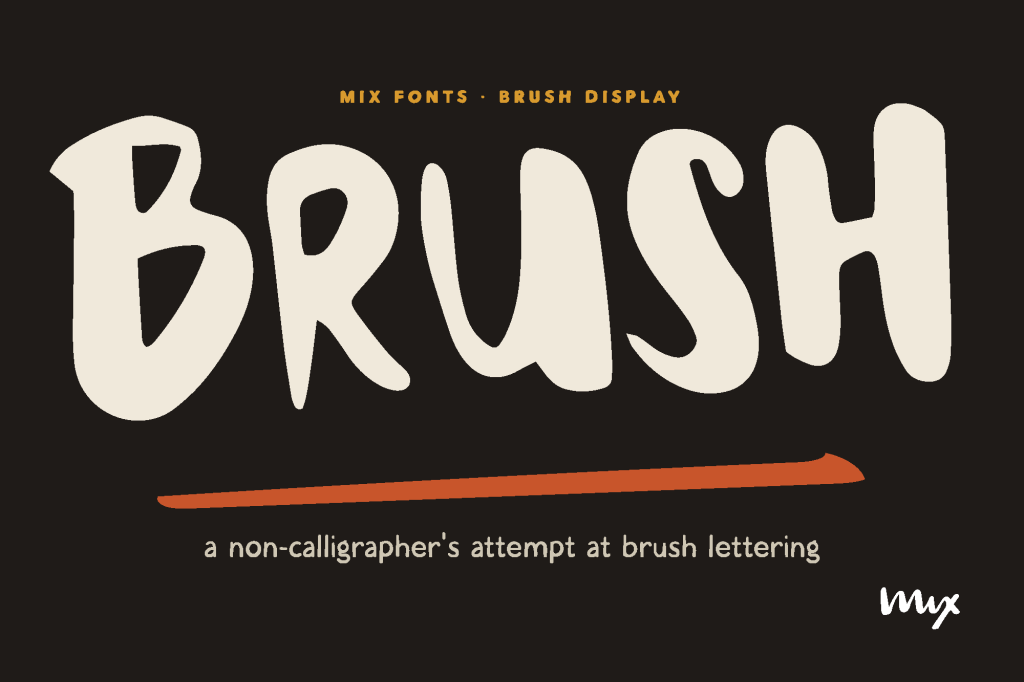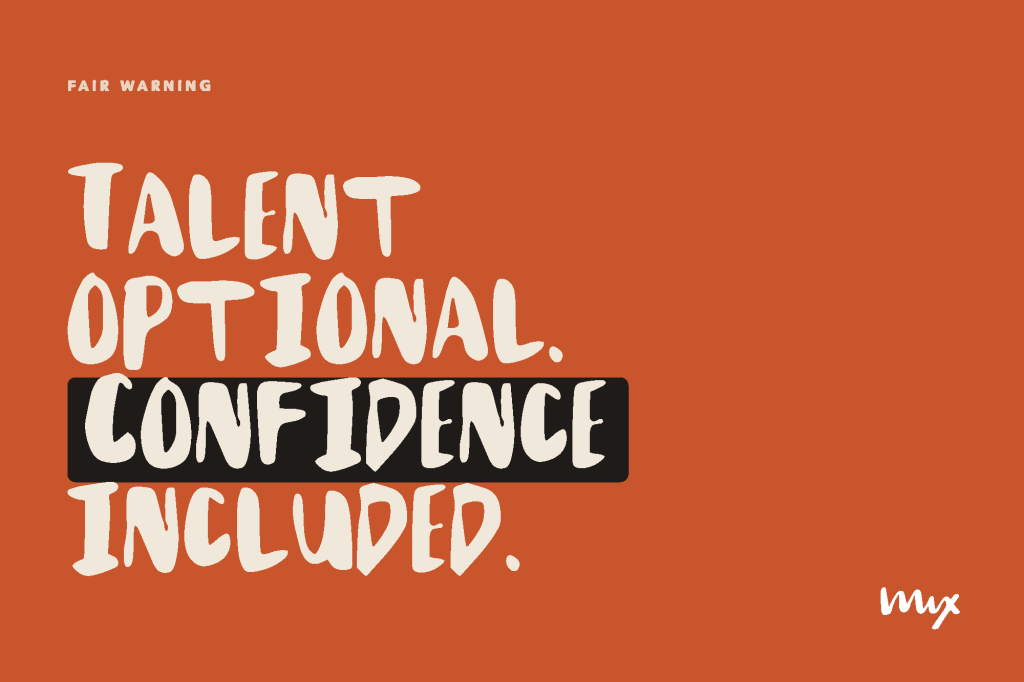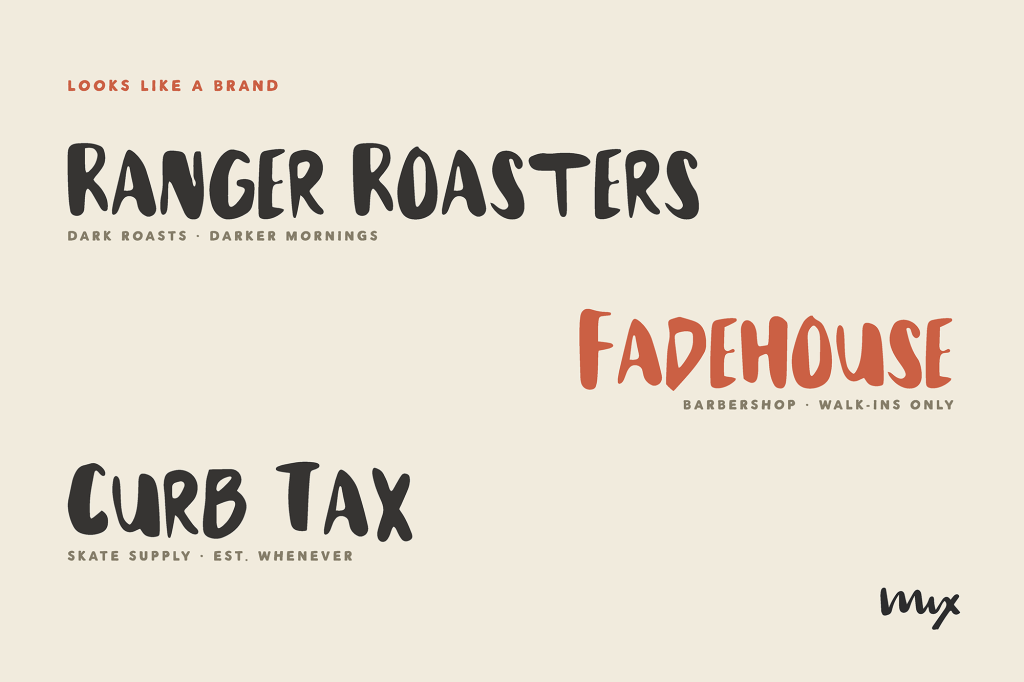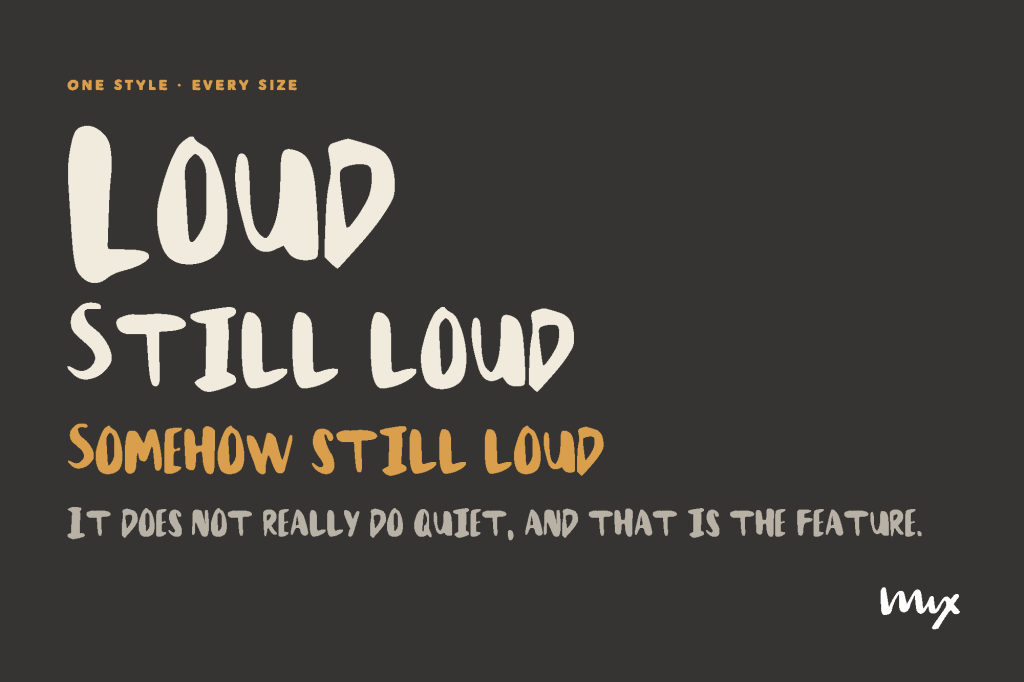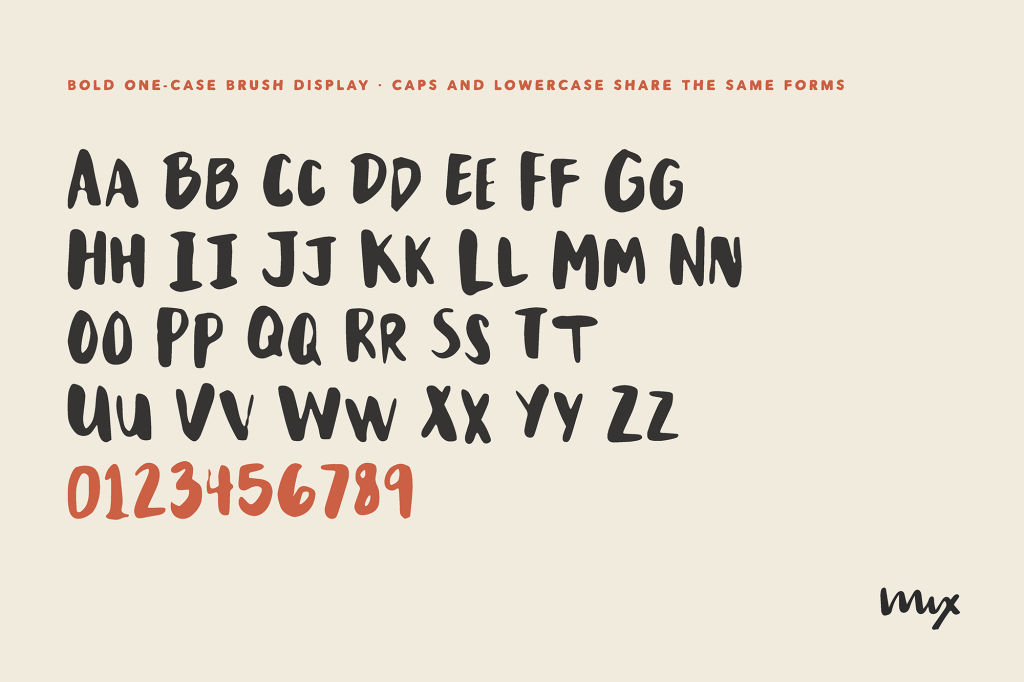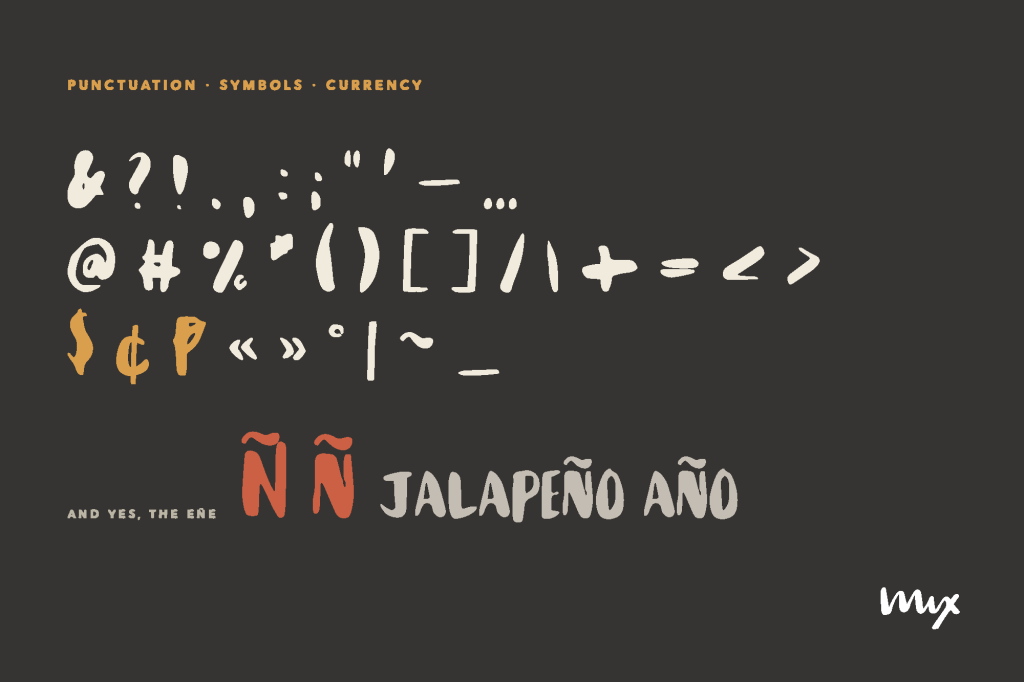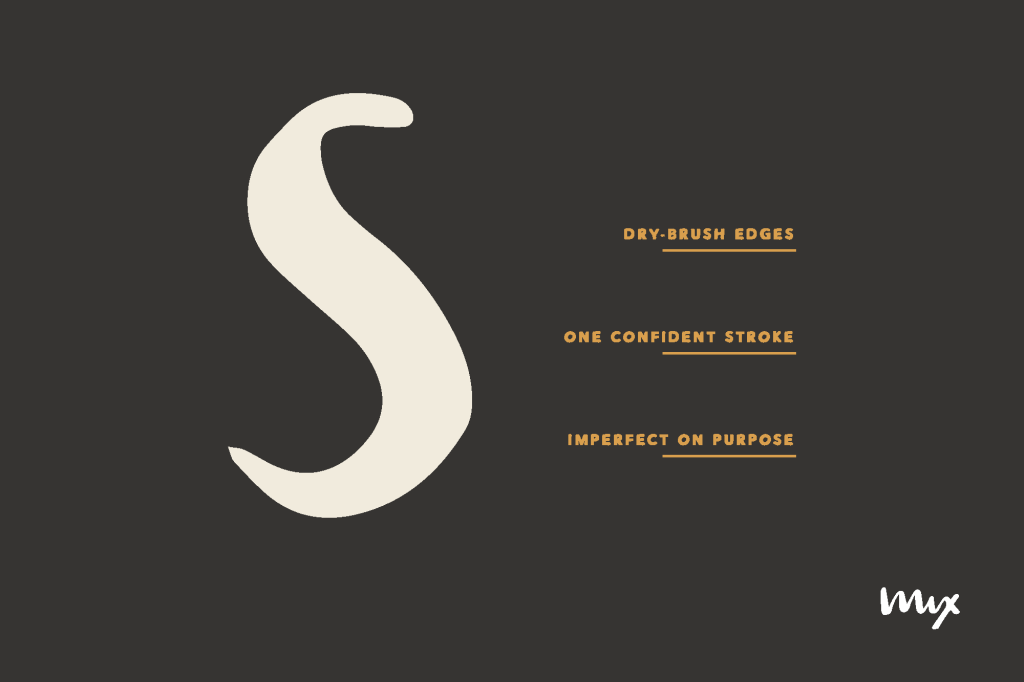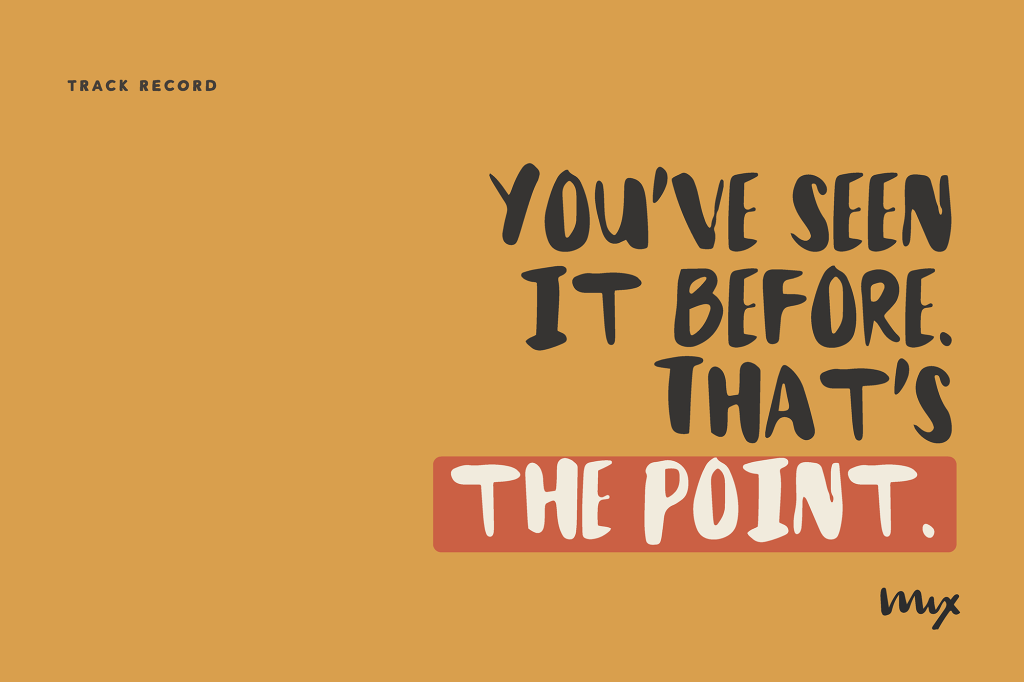
Mix Brush
Dry-brush hand, chunky and rough.
Mix Brush is a non-calligrapher’s attempt at brush lettering, and it works. Thick, uneven strokes and a bold uppercase build give it real handmade brush character without requiring actual brush-lettering skill to use it well. Built for anything that needs to look handmade and mean it, from t-shirts to packaging to signage.
Includes the full character set: uppercase, lowercase, numbers, punctuation, accented Ñ/ñ, and currency symbols including ₱.